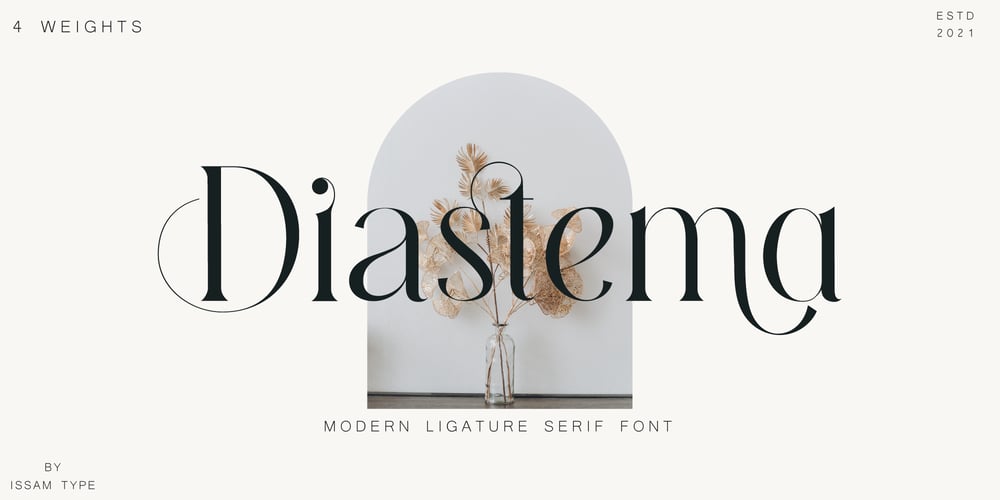
Diastema
Diastema font
Diastema Font Family was designed by Issam Boufelja and published by Issam Type. Diastema contains 4 styles and family package options. Diastema is a modern ligature serif typeface comes with joining ligatures that give it a fancy and unique style. This font perfect for branding, logos, invitation, watermark and more.Diastema typeface comes with regular, italic, bold and bold italic font styles. Uppercase & lowercase letters, numbers, punctuation, ligatures, alternatesMultilingual support. If you have any questions, please feel free to get in touch.Thank you